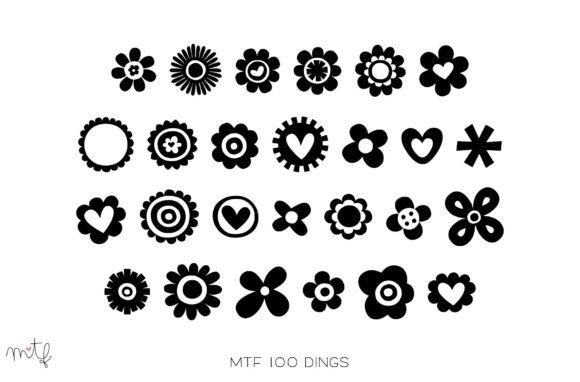
As a designer, have you ever found yourself stuck in a creative rut, searching for the perfect font to bring your vision to life? We’ve all been there. It’s that moment when you’re staring at a blank canvas, and all you need is a spark to ignite your imagination. For those of us who crave a little extra flair, the Hundred Duo Font is here to save the day.
This charming handwritten and dingbats duo font is designed to add a playful touch to your creations. With its unique blend of elegance and whimsy, the Hundred Duo Font is perfect for anyone looking to add a little personality to their designs. Whether you’re a seasoned pro or just starting out, this font is a valuable addition to your toolkit, offering endless possibilities for creative expression.
Hundred Duo Font Key Features
- Unique Characteristics: The font features a unique blend of modern and classic design elements, with clean lines, geometric shapes, and subtle texture, making it a versatile choice for a variety of design projects.
Hundred Duo Font Review
I recently had the chance to work with the Hundred Duo Font, and I’m excited to share my honest thoughts on this beautiful typeface.
- Unique Design: Hundred Duo Font has a distinctive and modern design that sets it apart from other fonts. It’s perfect for designers looking to add some personality to their projects.
- High-Quality Renditions: The font is available in both Regular and Bold weights, making it suitable for a wide range of applications.
- Smooth Typography: The font’s design ensures a smooth reading experience, even at smaller font sizes.
- Limited Language Support: The font may not support all languages, which could be a limitation for designers working on multilingual projects.
- No Italic or Oblique: The font is only available in Regular and Bold weights, which may limit its use in certain situations.
Overall, I’m impressed with the Hundred Duo Font’s unique design and high-quality renditions. While it may have some limitations, it’s a great addition to any designer’s toolkit. I’d definitely consider using it for projects where I want to add a touch of modernity and personality.
Hundred Duo Font Practical Application Guide
Tips for Getting the Most Out of Hundred Duo Font
To get the most out of the Hundred Duo font, use it sparingly for headings and titles, as it’s a script font. Pair it with a sans-serif font for body text to create a balanced design. Experiment with different font sizes and colors to create visual hierarchy.
The Hundred Duo font is ideal for:
- Event signage and graphics
- Wedding and event websites